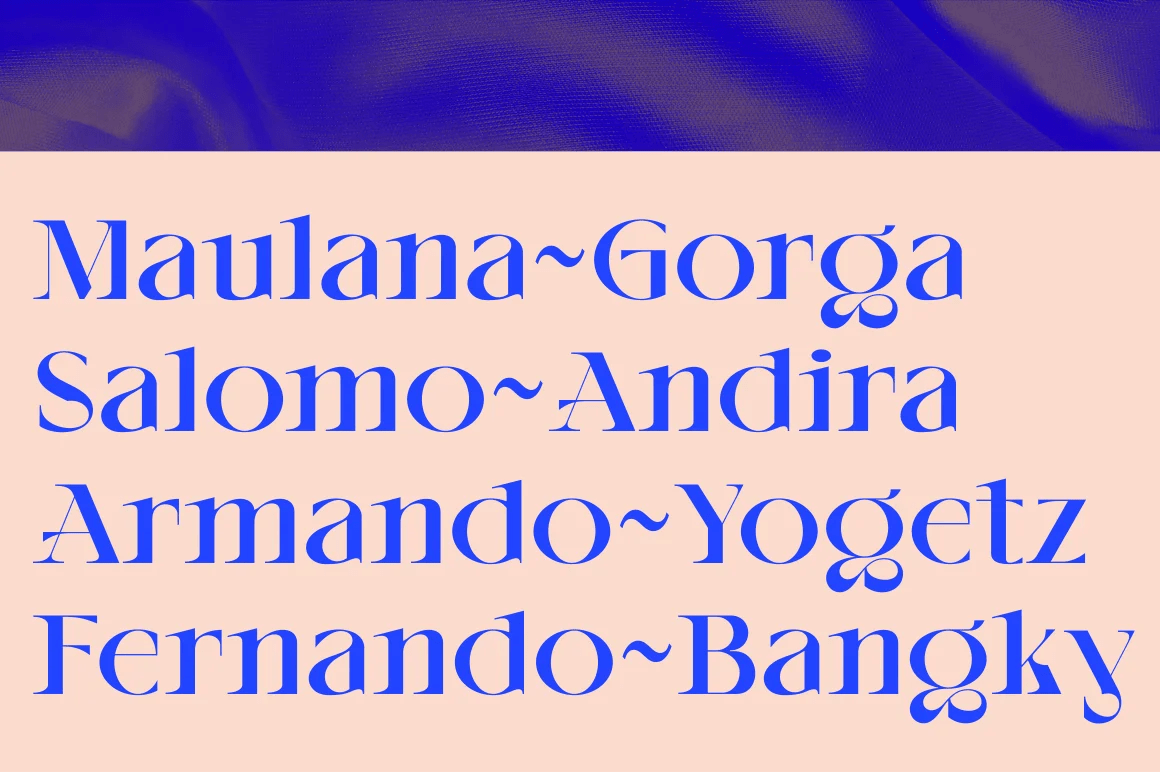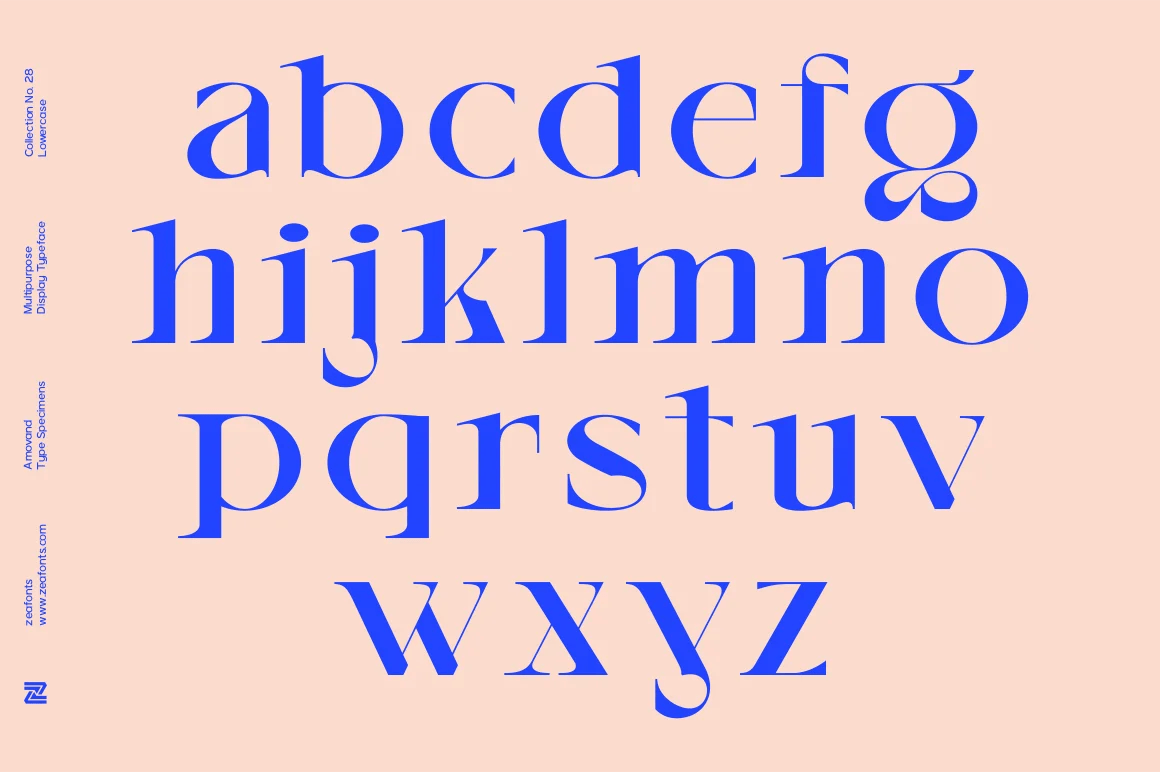
Amovand is a versatile and unique half-side serif font, Amovand has a unique style with stylistic, alternates, ligatures and supports multilingual languages.
Create unique & beautiful logotype,  use it as an elegant solution for your next magazine layout, or choose Amovand for any graphics that require a sleek look with a elegant flair.
AMOVAND